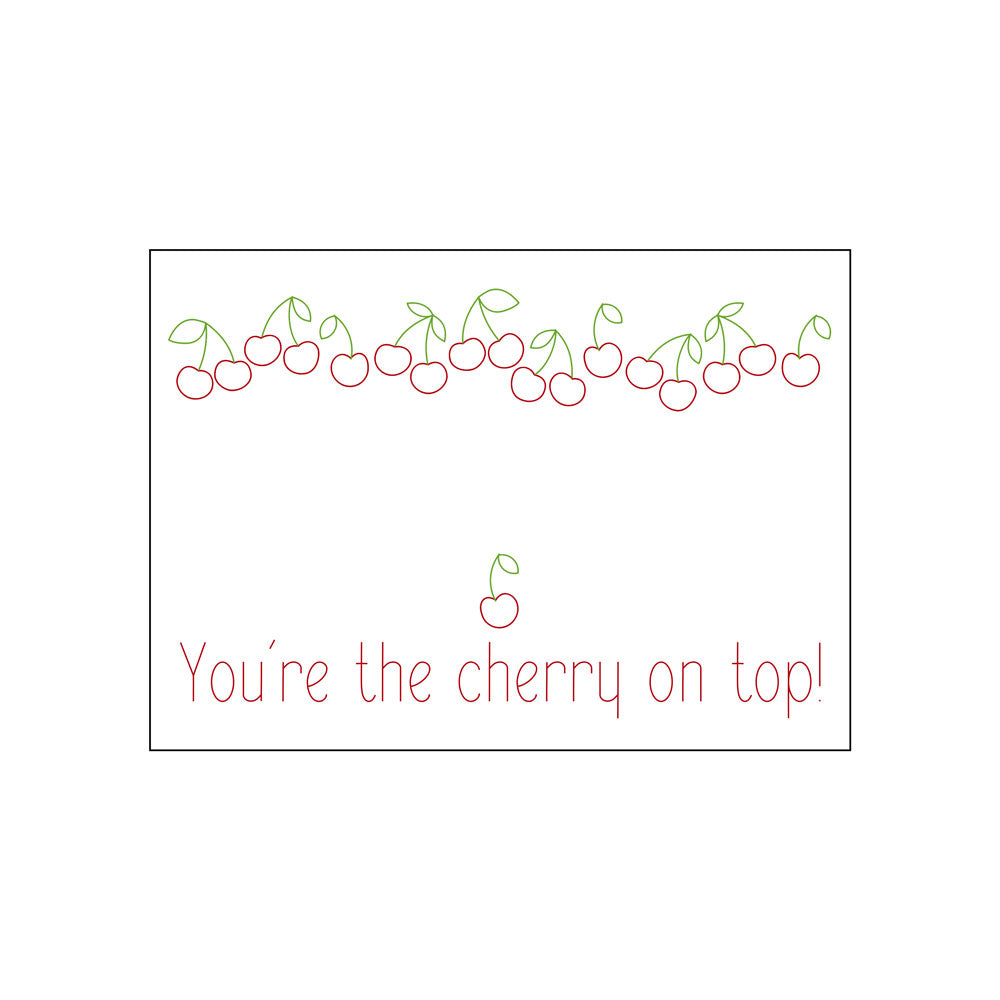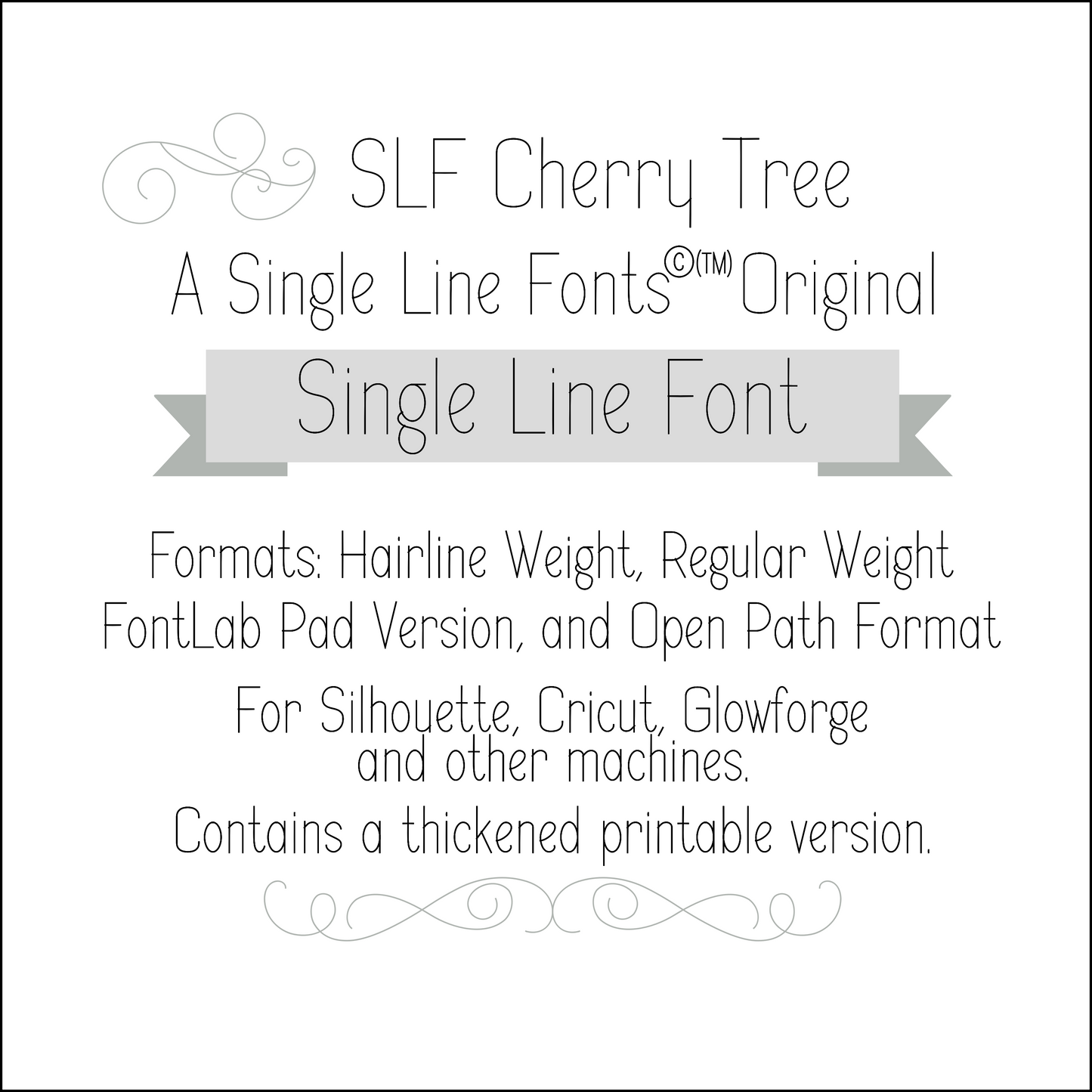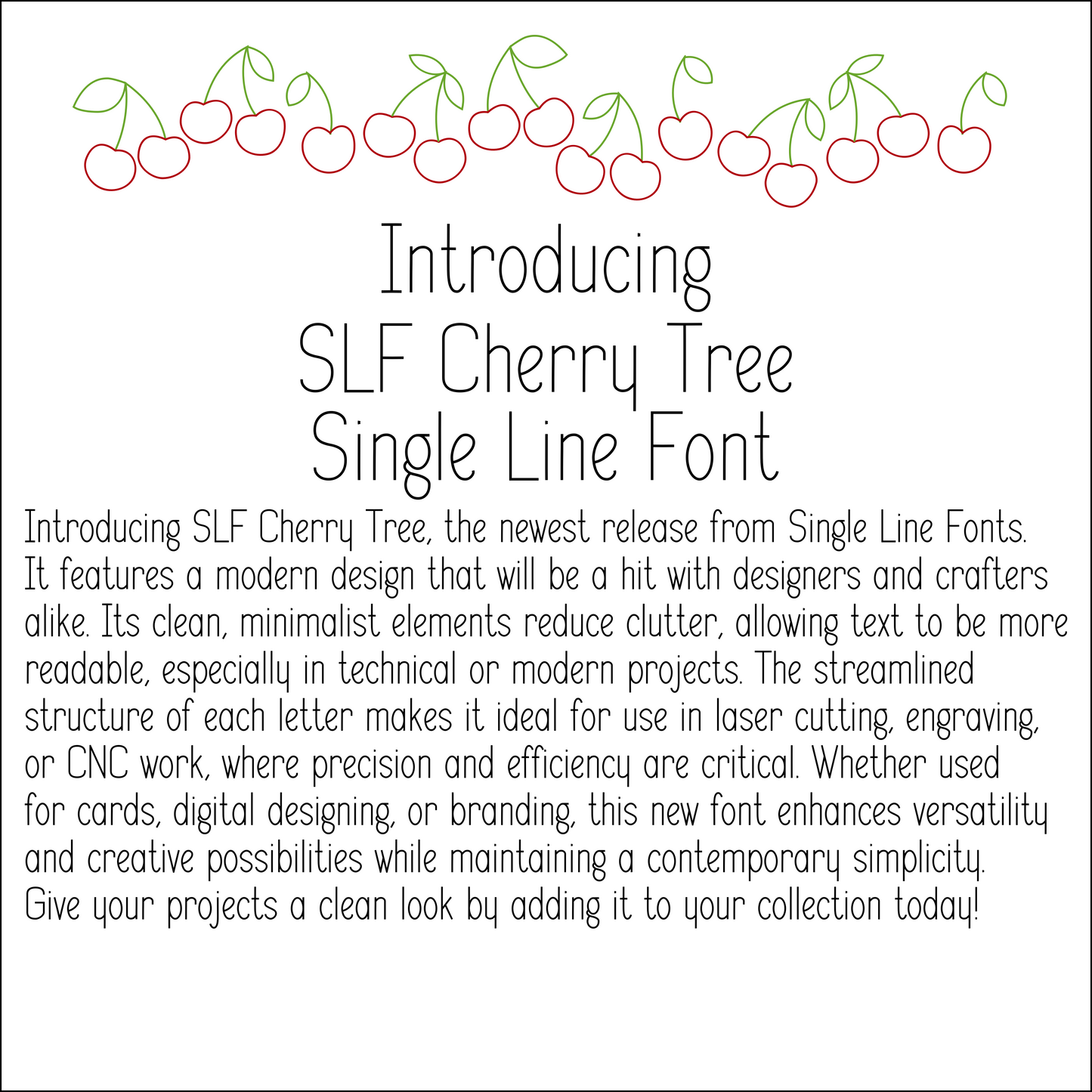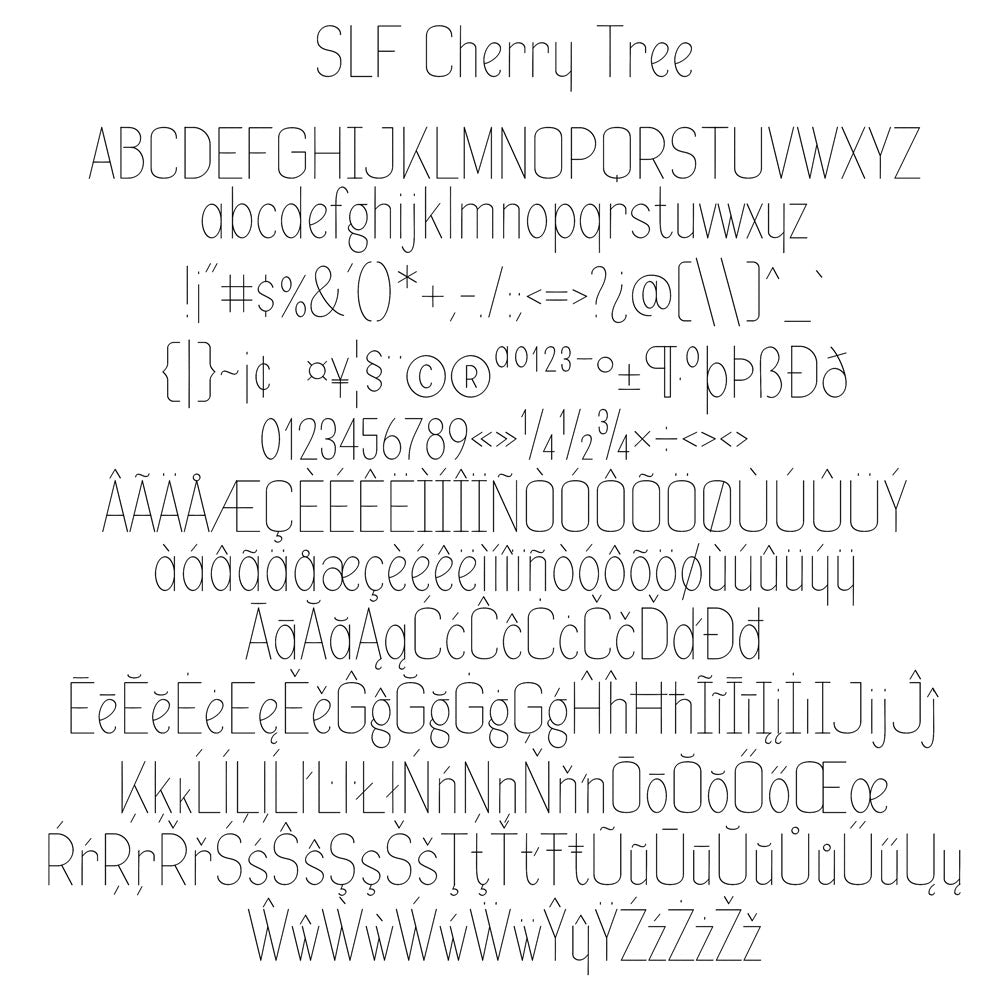
SLF Cherry Tree – Single Line Font for Glowforge, Cricut & CNC
SLF Cherry Tree is a clean, modern single line font designed for engraving, cutting, and creative craft applications. Its streamlined, minimalist letterforms make text highly readable and efficient, especially in laser engraving, CNC work, and digital design.
This monoline font includes a full character set with uppercase and lowercase letters, numbers, punctuation, and accented characters for multilingual support.
• Logos, branding, signage, and modern design projects